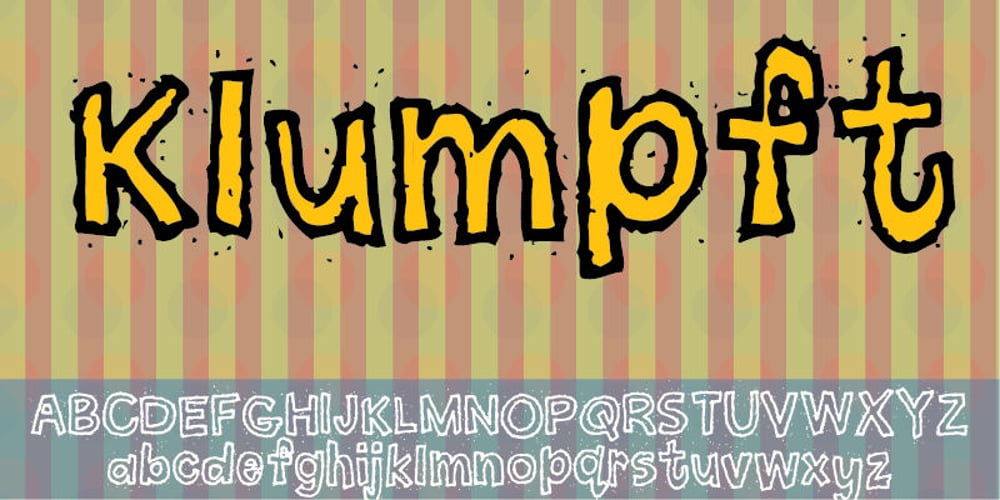
Klumpft Font Family was designed by Jakob Fischer and published by PizzaDude.dk. Klumpft contains 1 styles and family package options. A noisy, clumsy and spattered font. Comes with ligatures for double letters. You will need to use OpenType supporting applications to use the autoligatures.